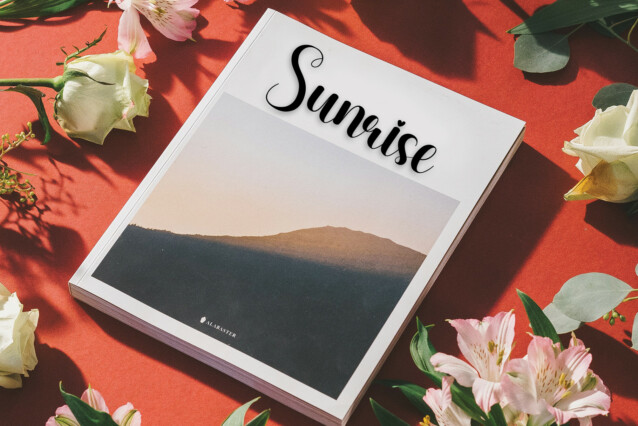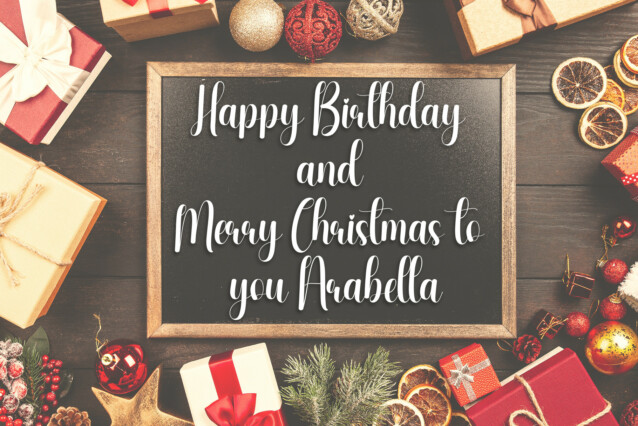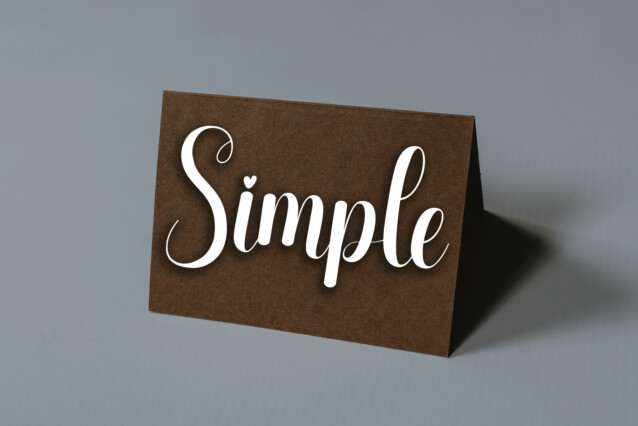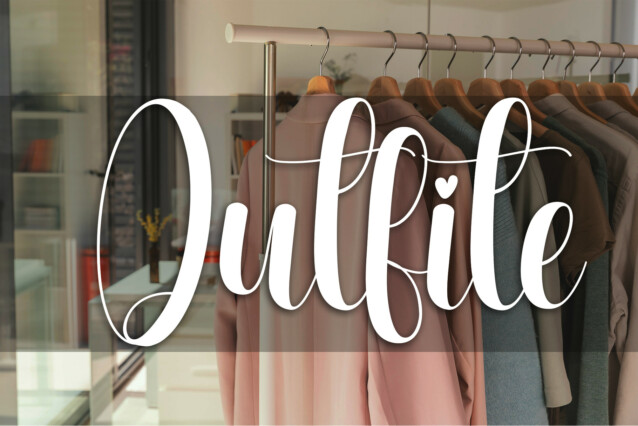
Coral Reefs Script Font
Coral Reefs Script Font is a sweet and friendly handwritten display font. Cute and fun, this font is ideal for writing wedding invitations, cards, or any other design that might need a playful touch!